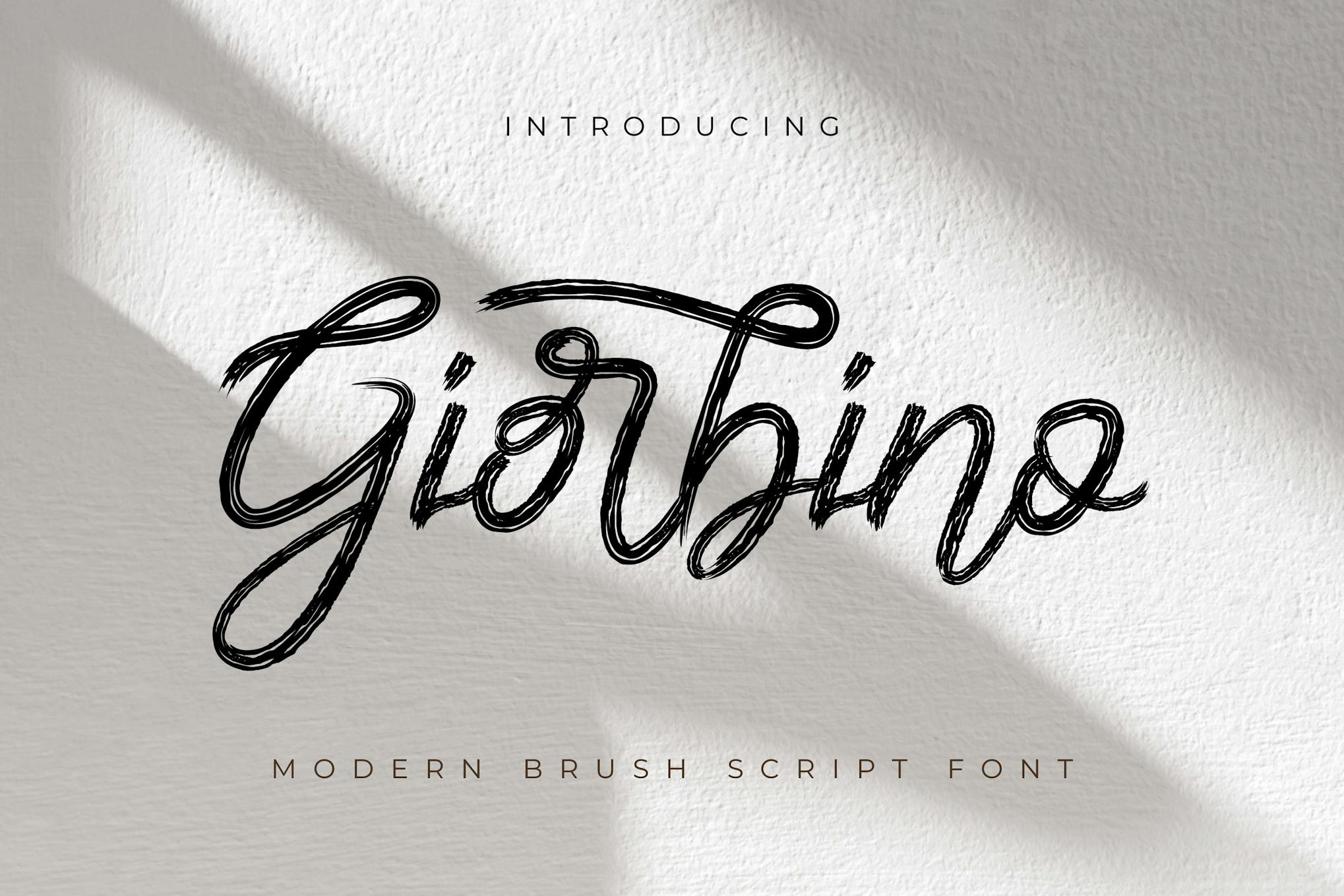
Giorbino Font
Giorbino Font enhances Italian restaurant branding, Mediterranean cuisine menus, artisanal pasta packaging, authentic pizzeria signage, European cafe identities, rustic wine labels, traditional bakery materials, Italian heritage celebrations, gourmet food branding, classic cooking publications, artisan cheese labels, and Mediterranean lifestyle campaigns where authentic Italian charm and old-world craftsmanship create memorable culinary experiences.
This charming typeface generates excitement through its perfect embodiment of Italian warmth and Mediterranean hospitality that creates typography radiating authentic old-world charm and culinary tradition. Giorbino Font captures the essence of Italian family traditions with its friendly, approachable letterforms that evoke the warmth of neighborhood trattorias and the personal touch of family-owned establishments. The font's inviting design approach incorporates elements that suggest handcrafted quality, generational wisdom, and the passionate dedication to excellence that characterizes authentic Italian culture. Its distinctive character reflects the joy, community spirit, and culinary passion that define genuine Italian hospitality and Mediterranean lifestyle.
The Giorbino Font family includes multiple traditional variations such as Regular, Bold, Light, Italic, and Rustic versions, each maintaining the font's characteristic Italian warmth while offering different levels of traditional impact. The collection features hand-drawn characteristics, authentic Italian styling, and decorative elements that enhance its Mediterranean appeal. Additional elements include Italian ornamental borders, culinary symbols, traditional flourishes, and Mediterranean decorative accents that reinforce the font's connection to authentic Italian culture and artisanal craftsmanship.
Whether you're designing Italian restaurant identities, creating artisanal food packaging, developing Mediterranean lifestyle branding, or crafting authentic cultural materials, Giorbino Font delivers unmatched Italian authenticity. Its ability to convey warmth, tradition, and culinary passion makes it invaluable for brands seeking to connect with audiences through genuine Italian cultural expression. The font's traditional presence ensures your designs will communicate the authentic charm and artisanal quality that define exceptional Italian culinary communications and Mediterranean lifestyle experiences.